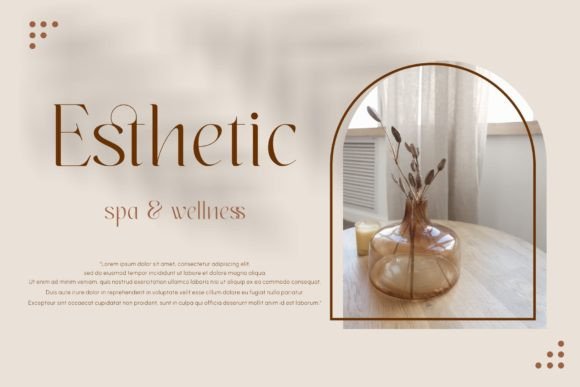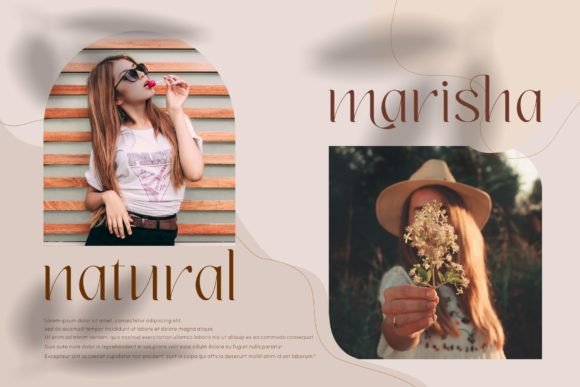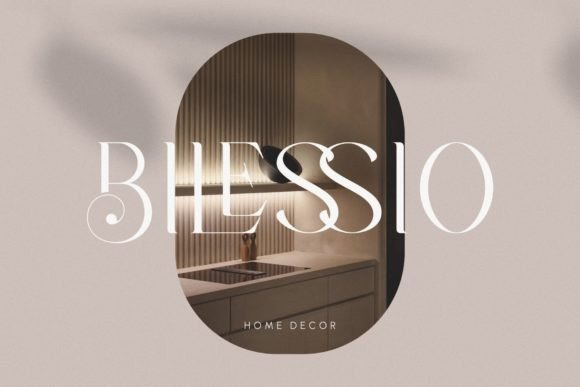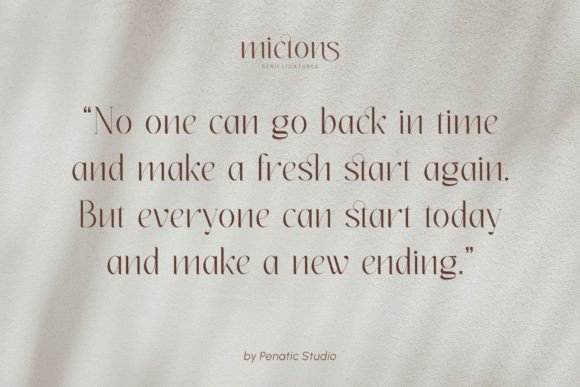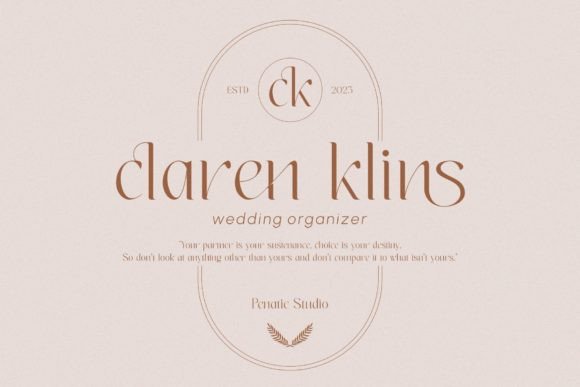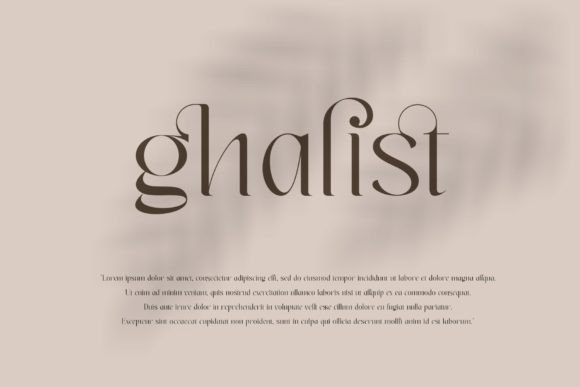
Introduction to Mictons Font
Have you ever found yourself staring at a blank canvas, eager to bring a creative project to life? As a designer, you know that the right font can make all the difference. For me, it’s that moment when I stumble upon a font that perfectly captures the essence of my vision. And that’s exactly what happens when I work with the Mictons Font.
With its minimalist, elegant, and clean serif design, Mictons Font is a versatile and high-quality design resource that adapts beautifully to various contexts, from designing labels for perfumes and cosmetics to creating magazine covers and posters. Whether you’re working on a free download project or a high-end campaign, Mictons Font is an excellent choice. Its transparent background and PUA encoded features make it easy to access and utilize its amazing glyphs and ligatures.
As a valuable resource for designers, Mictons Font offers endless possibilities for creative expression. Its unique blend of simplicity and sophistication makes it an ideal choice for designers looking to elevate their projects and make them truly come alive.
Key Features of Mictons Font
- High-quality design resource ideal for creative projects with a transparent background, allowing for seamless integration into various designs.
- Unique characteristic: Mictons Font features a distinctive, modern aesthetic with a blend of clean lines and subtle flair, making it perfect for designers seeking a fresh look.
- Perfect for use in logos, headings, and body text, Mictons Font is an excellent choice for designers working on a variety of creative projects.
Honest Review: Mictons Font
As a designer, I’m always on the lookout for high-quality design resources to elevate my creative projects. Recently, I had the chance to try out the Mictons Font, and I must say, it’s been a game-changer.
- The font is incredibly versatile, with a range of styles and weights that make it perfect for both digital and print projects.
- The high-quality design ensures that the font looks crisp and clear, even when used on a transparent background.
- The font may not be suitable for projects that require a lot of customization, as it’s a relatively straightforward design.
- The lack of extensive documentation can make it difficult for designers to get the most out of the font.
Overall, I’m thoroughly impressed with the Mictons Font. Its high-quality design, versatility, and free download option make it a valuable resource for any designer. While it may have some limitations, it’s definitely worth considering for your next creative project.
Tips for Getting the Most Out of Mictons Font
For optimal results, use Mictons Font in conjunction with a high-quality image or background. Experiment with different font sizes and colors to create a visually appealing design. You can also use Mictons Font in combination with other design elements to add depth and interest to your creative project.
Mictons Font is commonly used in graphic design, digital art, and creative projects. Its high-quality design and transparent background feature make it ideal for use in a variety of applications, including logos, business cards, and social media graphics.